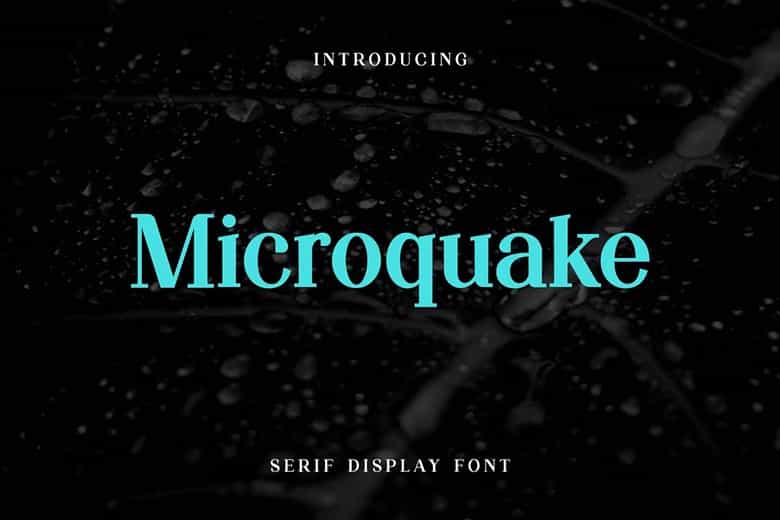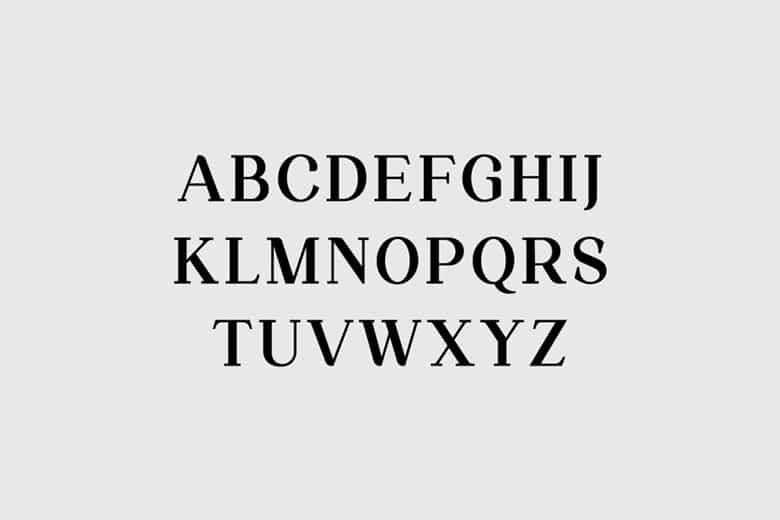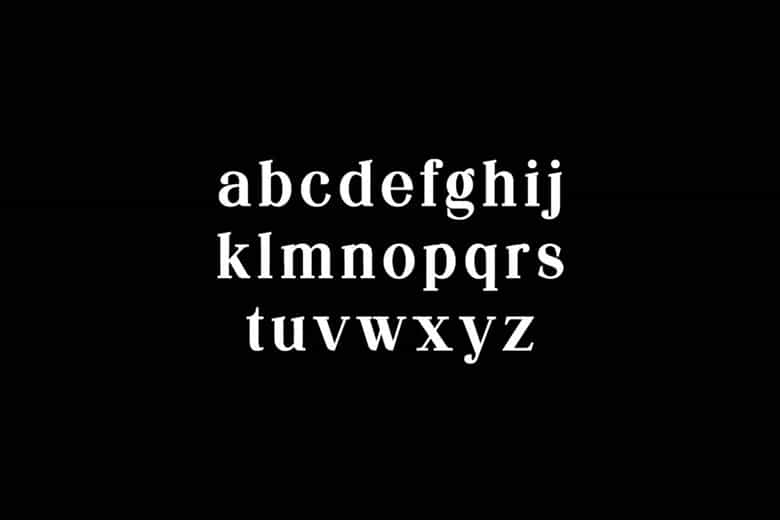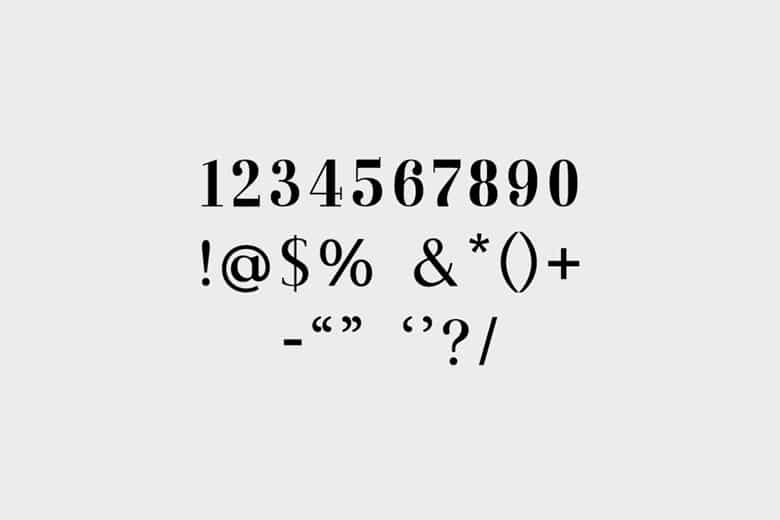
Microquake is an elegant and modern serif display font. This font is perfect for any kind of work including logos, weddings, typography quotes, magazine or book layouts, website headers, brands, and more. Additionally, both fashion branding or editorial design has a masculine and feminine aesthetic.